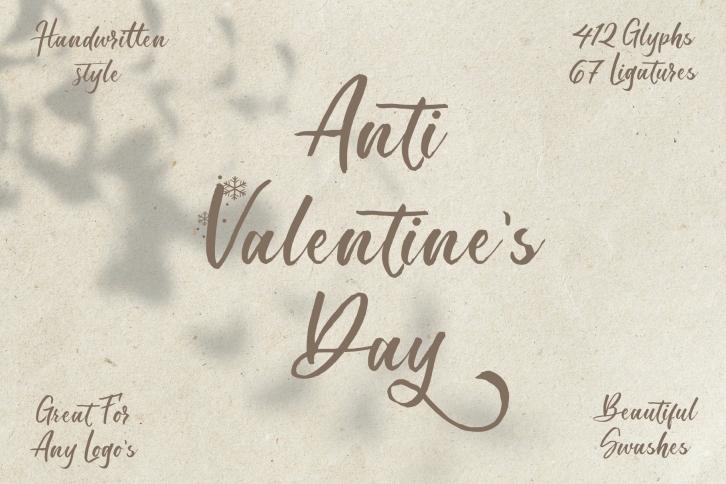
Anti Valentines Day Valentine Script is a gorgeous font that was realeased on January 6, 2022. The font can be used in many style contexts and design environments. Perfect for invitations, magazines, websites, logos, and more! It was designed by aldedesign and the file size is 20.49 MB. Thanks for checking out this font!